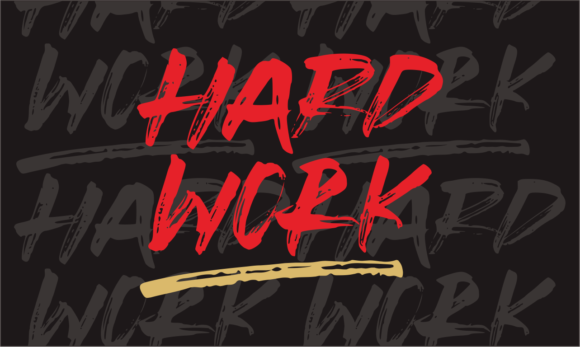
First Impressions: A Raw and Energetic Font
The Blindspot Font is a raw handwritten font that features supercharged, authentic, and quick brush strokes. It’s bursting with energy and comes with gorgeous extra swashes. This font is perfect for designers, crafters, and creative hobbyists looking to add a personal touch to their projects.
- ✨ The energy and movement it brings to any design
- ✅ The authentic, hand-crafted feel
- 💫 The extra swashes that add a touch of elegance
- 🎨 The versatility – perfect for titles, headings, and more
While the Blindspot Font is amazing, there are a few things to keep in mind: 🤔
- ⚠️ It can be a bit overpowering if not used thoughtfully
- ⚠️ Some of the swashes might not work well with certain sentence structures
The Designer Inspiration Behind Blindspot Font
The Blindspot Font was created with the intention of capturing the raw energy of hand-painted signs and street art. The designer aimed to create a font that felt authentic, imperfect, and full of life. By combining bold brush strokes with elegant swashes, the Blindspot Font is perfect for designers looking to add a touch of personality to their work.
Q: What makes the Blindspot Font unique?
A: The Blindspot Font stands out due to its raw, hand-crafted feel and the inclusion of gorgeous extra swashes, which add a touch of elegance to any design.
Q: Is the Blindspot Font difficult to read?
A: While the Blindspot Font has a unique, hand-crafted feel, it’s still quite legible. However, it may not be the best choice for body text or long paragraphs.